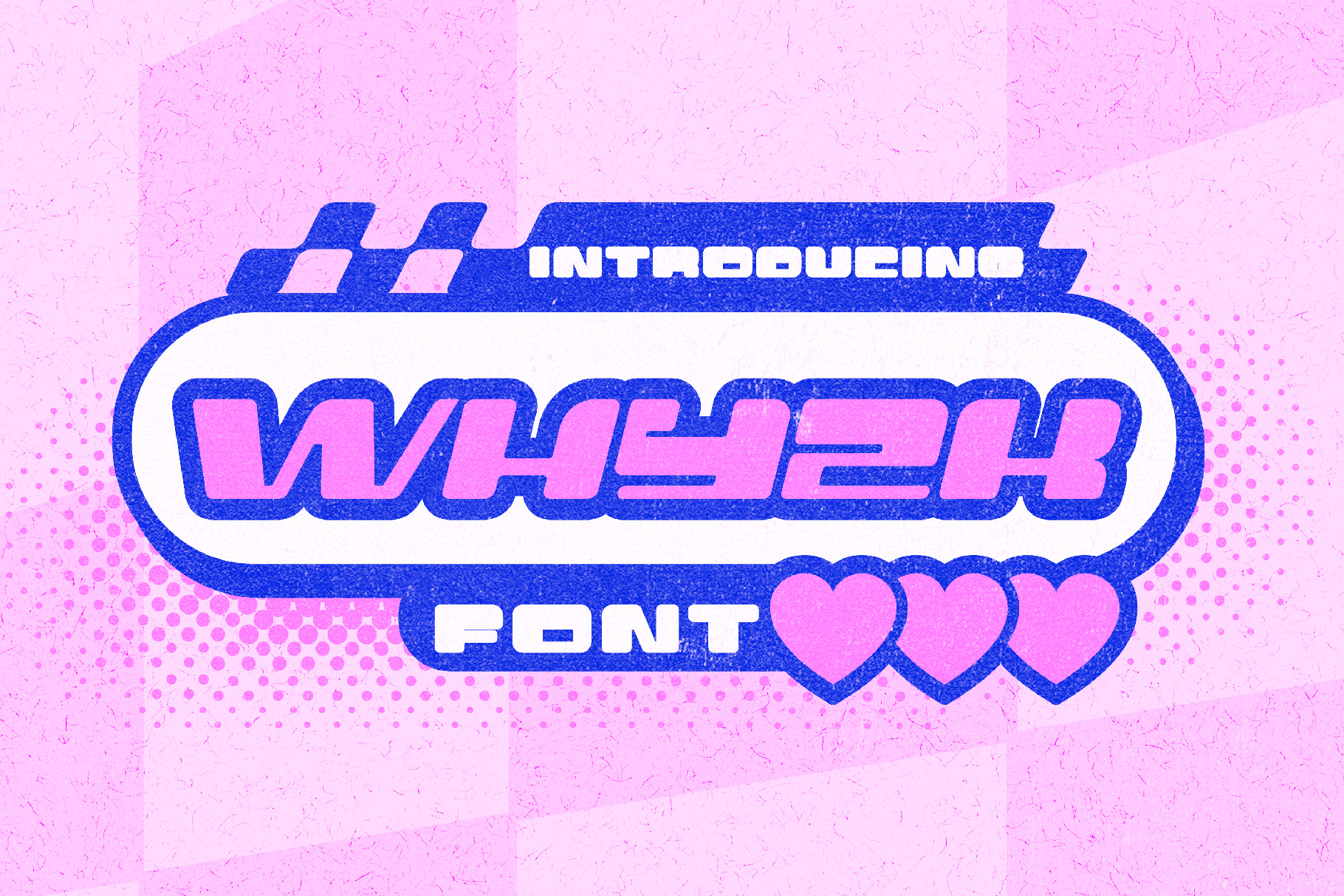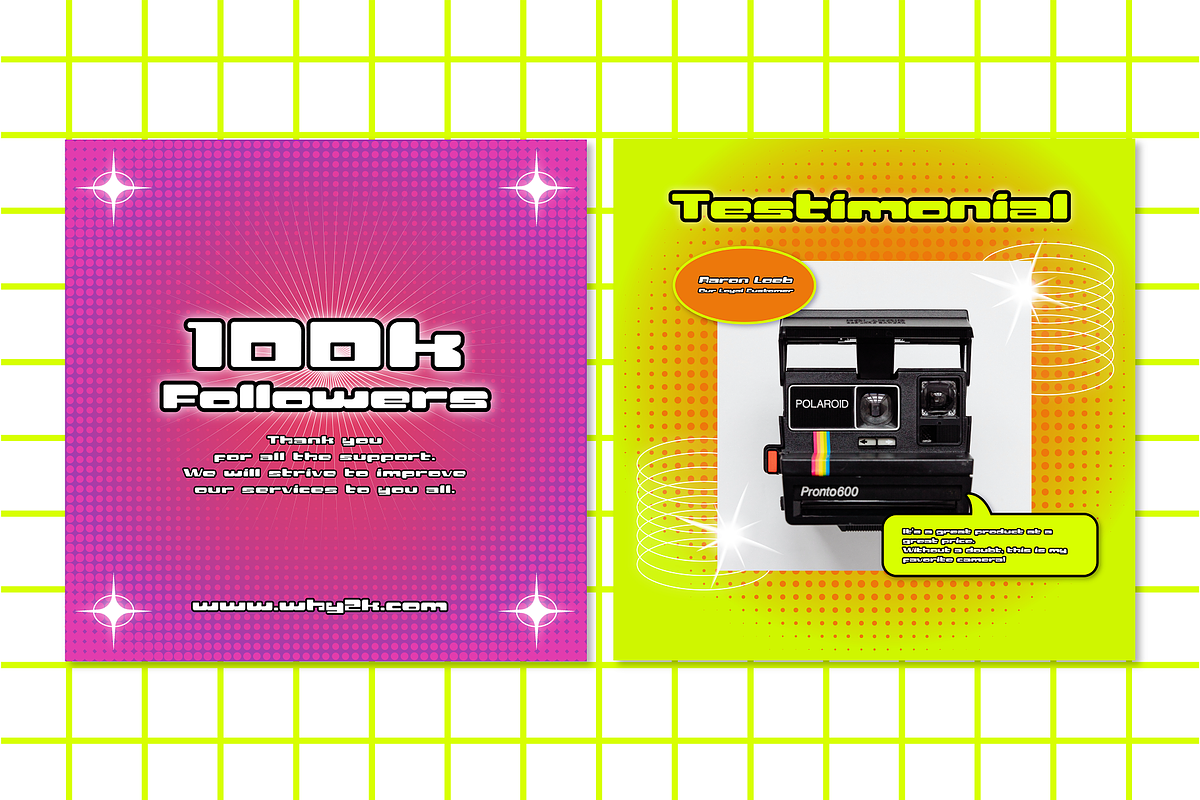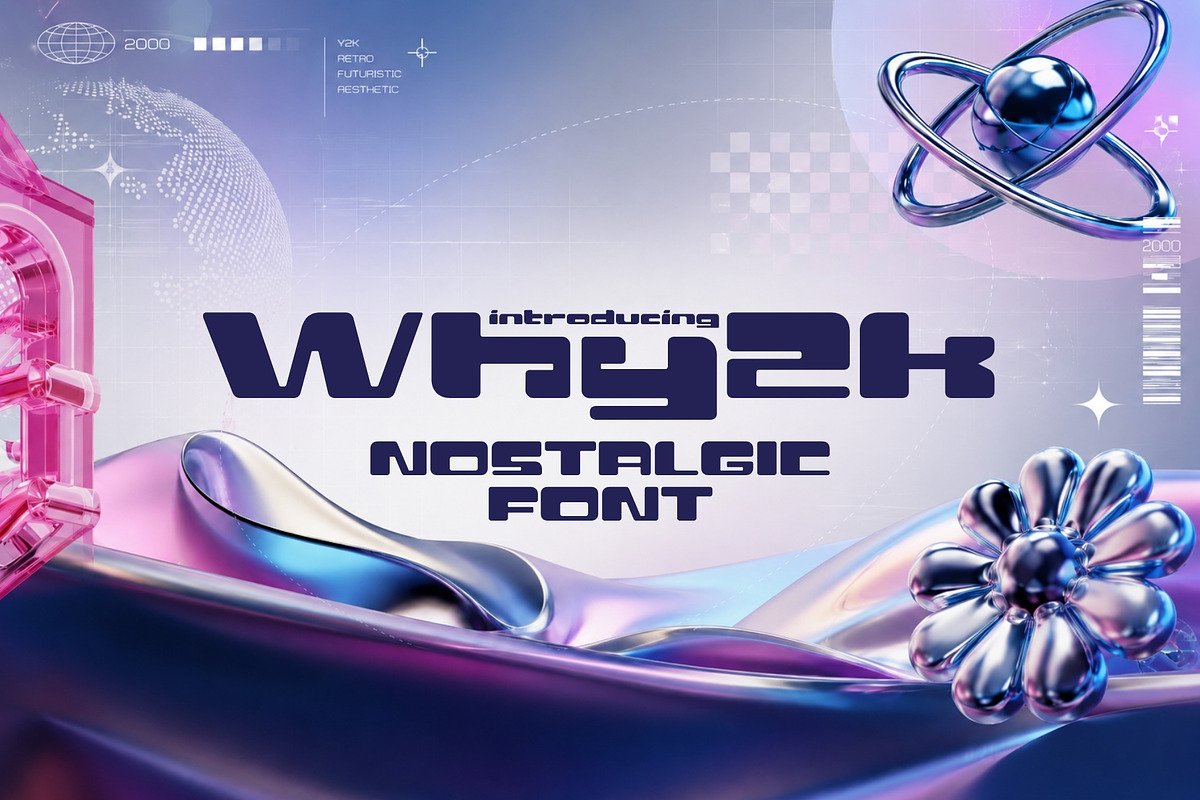
Why2K - Nostalgic 2000s Font
Why2k is a retro typeface from the early 2000s, when we celebrated the colorful, bold, loud, and experimental visuals. This font is ideal for branding, prints, posters, magazines, headlines, social media, music, Youtube, and much more. Why2k is a multilingual font. It comes in 3 flavors; regular, outline, and slanted. If you're aiming to create that early 2000s nostalgia look, then Why2K is perfect for you.